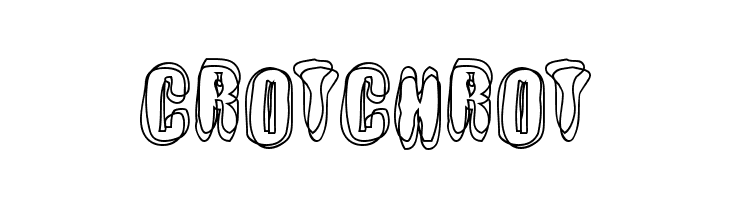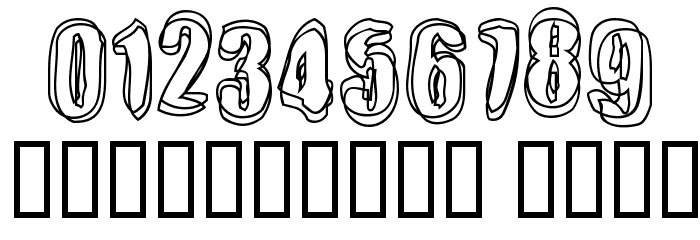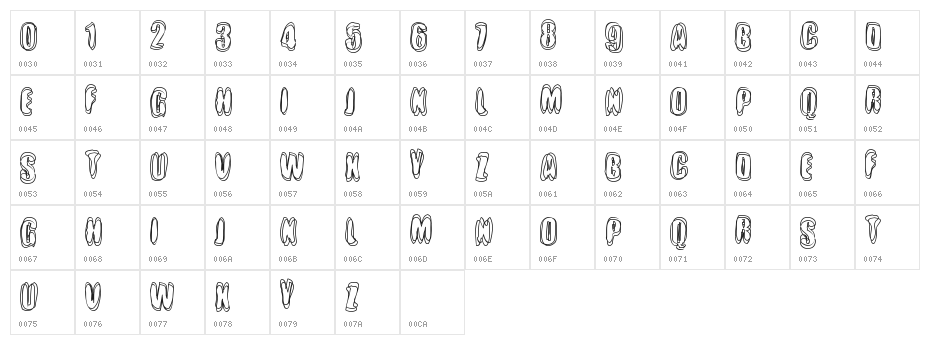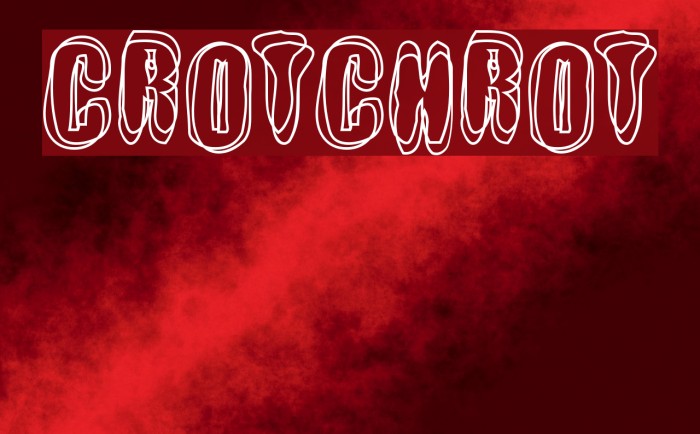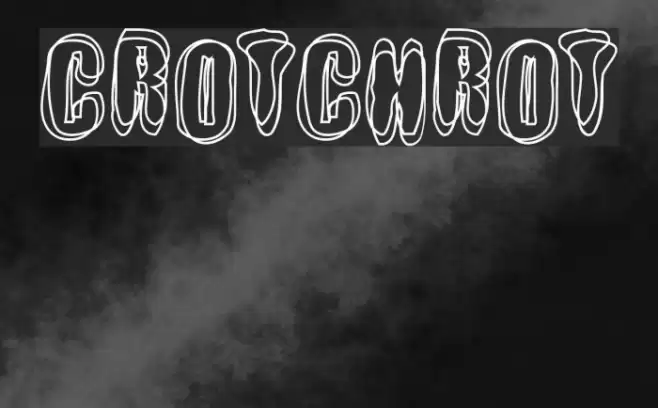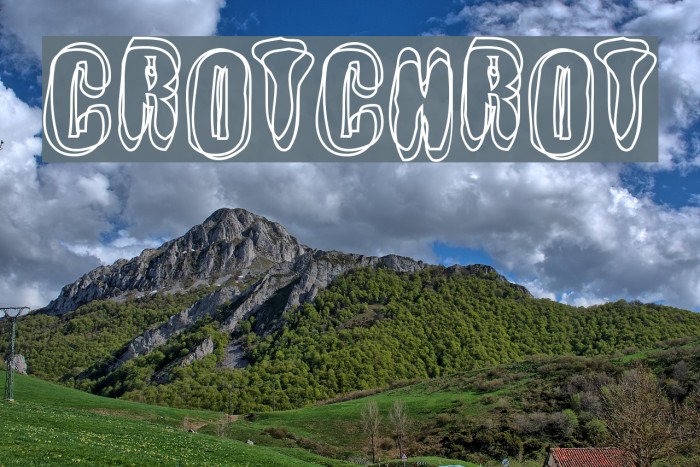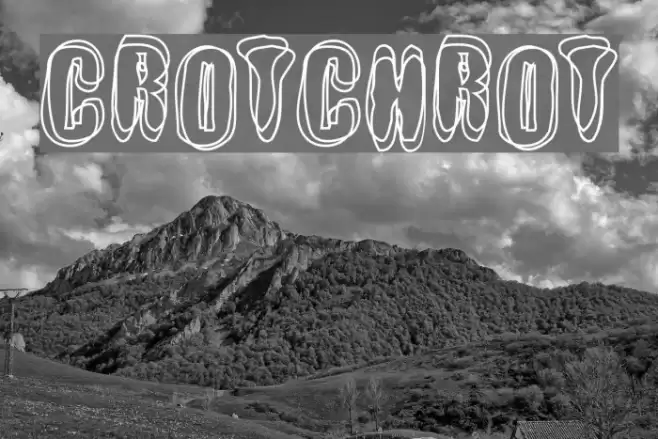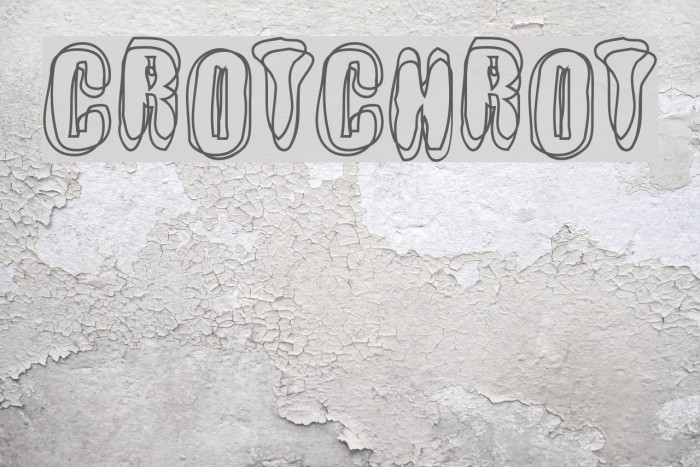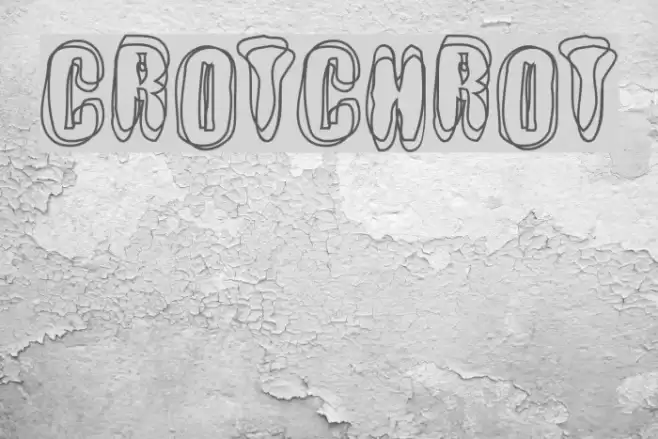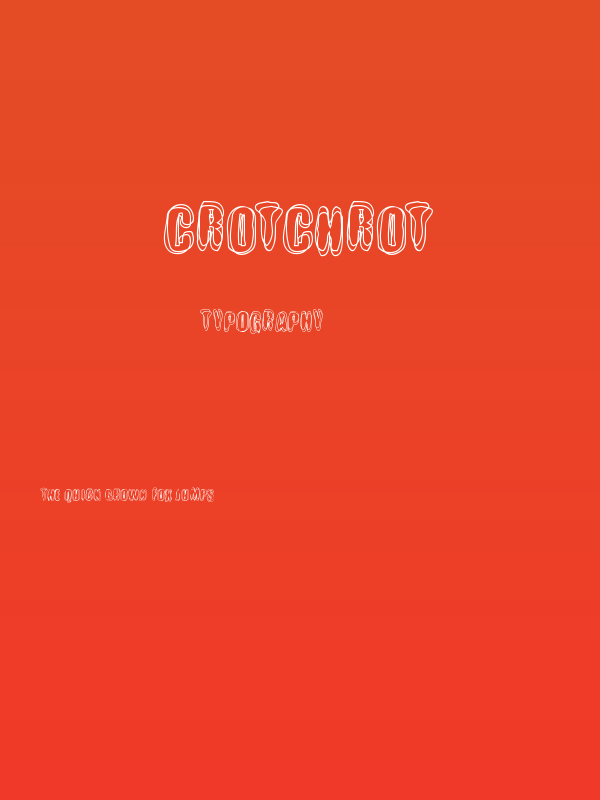
Crotchrot Font
Crotchrot Description
This font features a playful and bold design with a hand-drawn aesthetic. Each character is outlined with a thick black line, giving it a cartoonish and dynamic appearance. The interior of the letters is filled with irregular shapes and lines, adding a sense of movement and energy. The overall style is reminiscent of graffiti or street art, making it stand out with its unique and artistic flair. The font is highly decorative, with each letter having a distinct personality, making it suitable for creative and informal projects. The numbers and special characters maintain the same lively style, ensuring consistency across all elements.
| Proposed Projects | Ideal for posters, album covers, street art designs, and any project requiring a bold, artistic touch. |